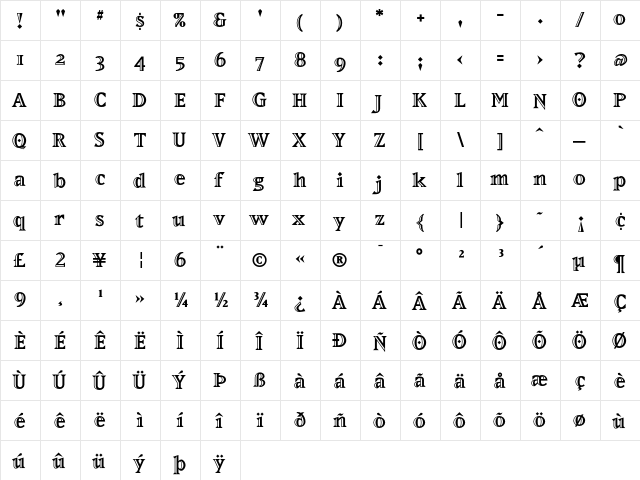
MatrixInlineExtraBoldOldstyle Regular
Design Context for MatrixInlineExtraBoldOldstyle Typeface
MatrixInlineExtraBoldOldstyle brings ornamental detail and strong personality to headlines and identities, where visual impact matters more than quiet functionality. Its bold stroke weight gives it real presence on the page.
Font Pairing: Pair with a clean neutral sans-serif for body copy to let MatrixInlineExtraBoldOldstyle's character lead without overwhelming the composition.
Pro Tip: Use MatrixInlineExtraBoldOldstyle exclusively at display sizes — it was designed to be seen, not read at length. Let a neutral companion handle body copy.